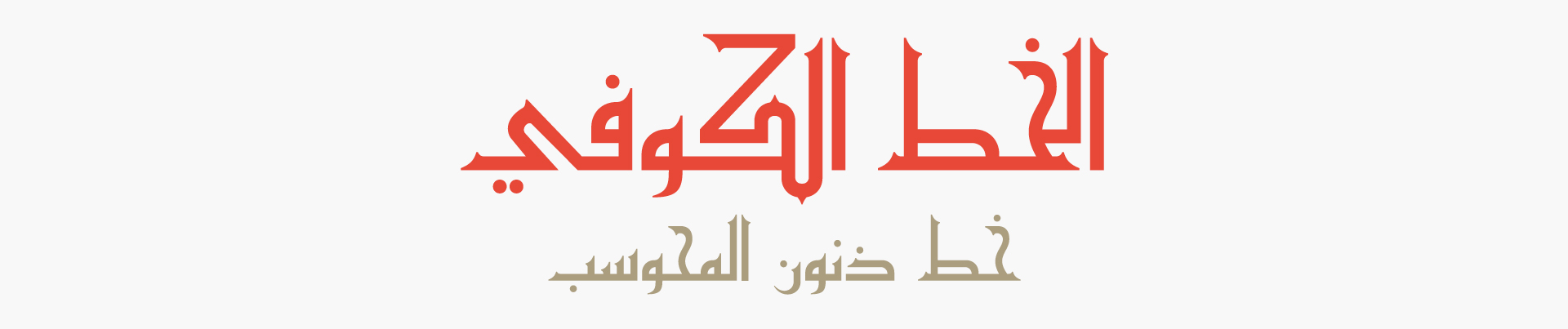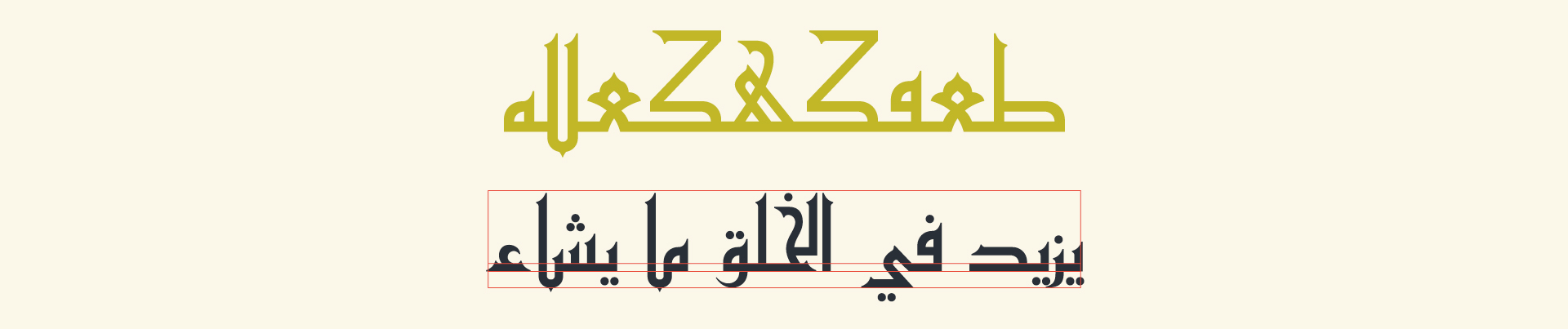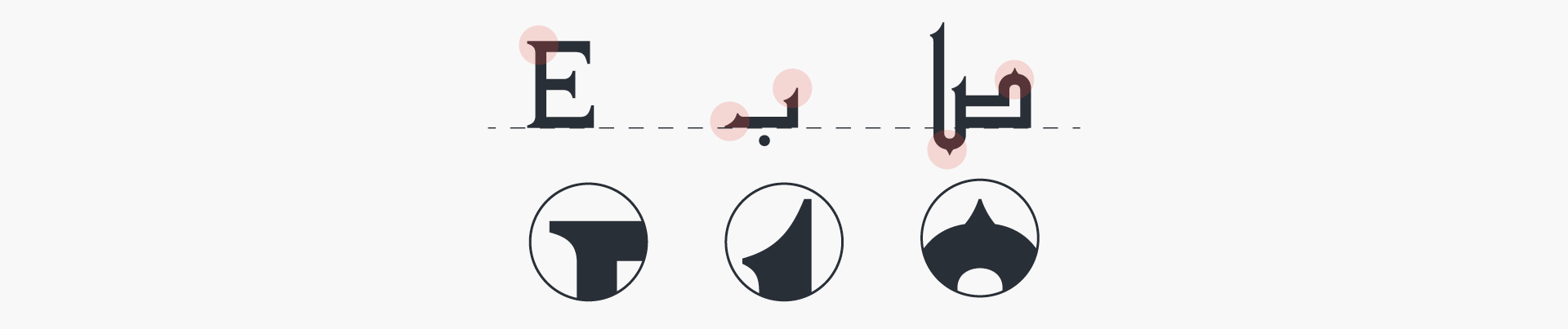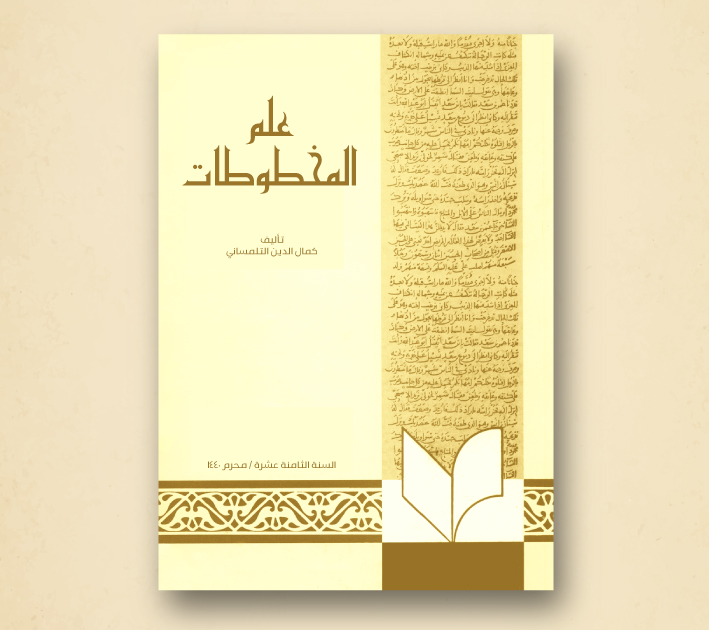
About Zinun Font
Introduction:
Zinun is Fatimid Kufic font whose letters are inspired by the book of Yusuf Zinun.
Weights and Supported Languages:
Zinun Font consists of 1 weight
It supports Arabic and English.
Usage:
Zinun is used in headlines, texts, social media posts, and visual identities.